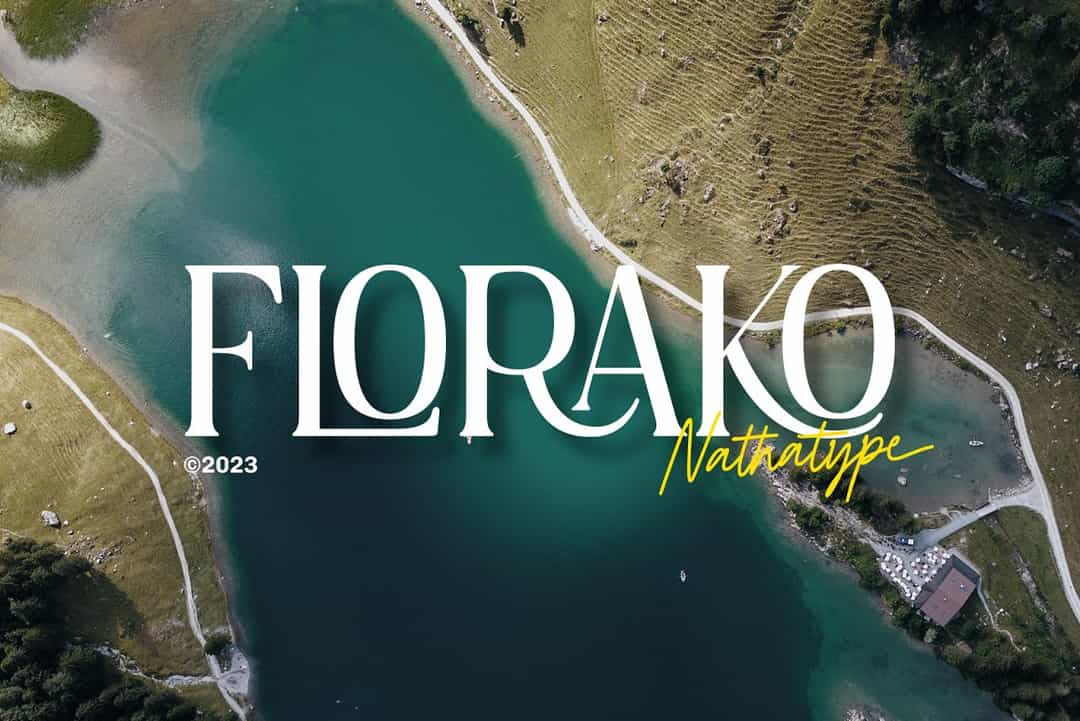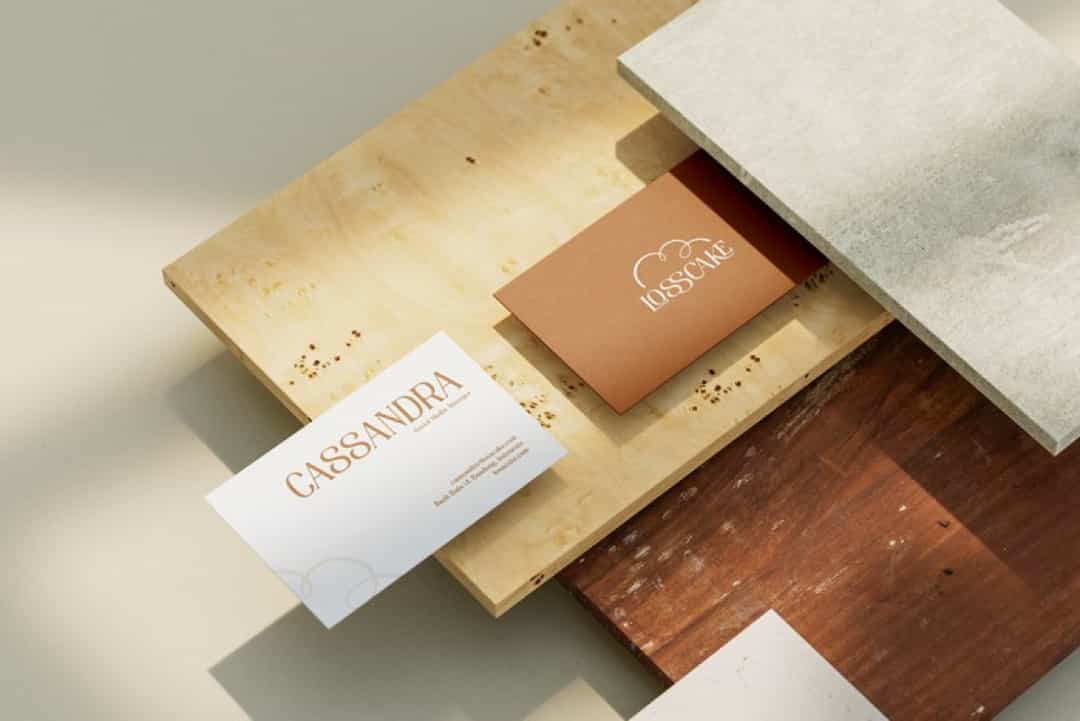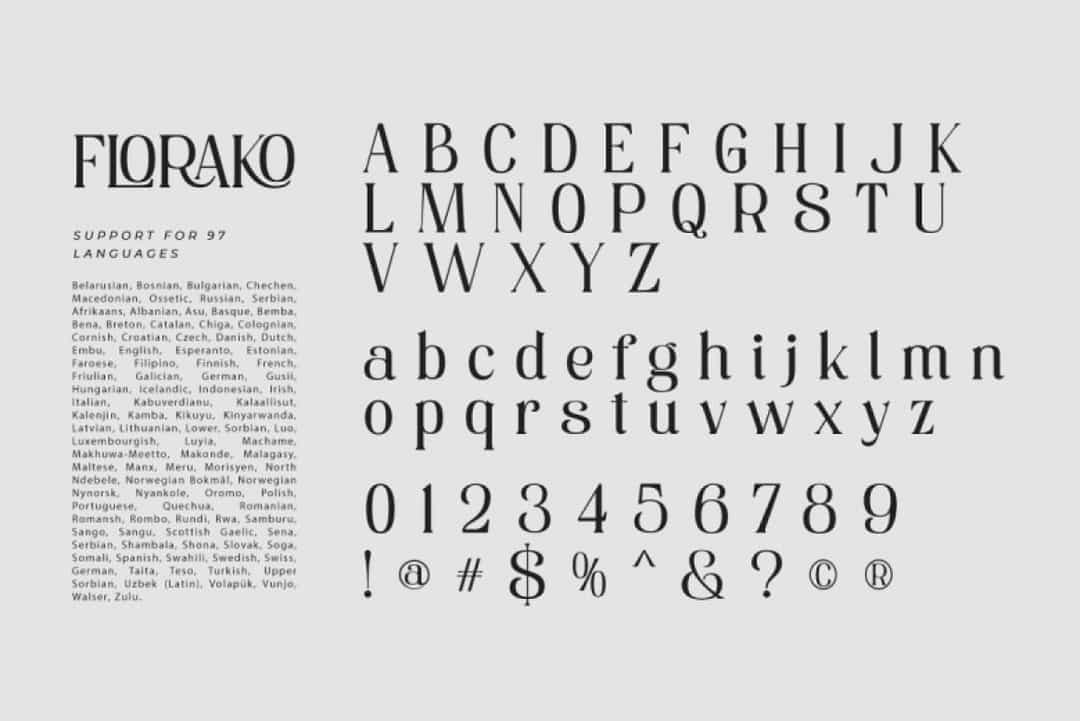
Florako can be described as an elegant serif font created with a modern and sophisticated style. The light weight font exudes grace and sophistication, adding the finishing touch to your projects. Slim letterforms with their precise lines and elegant curves strike an ideal balance between classy lines and modern lines while refined serifs lend classic features for contemporary usage.